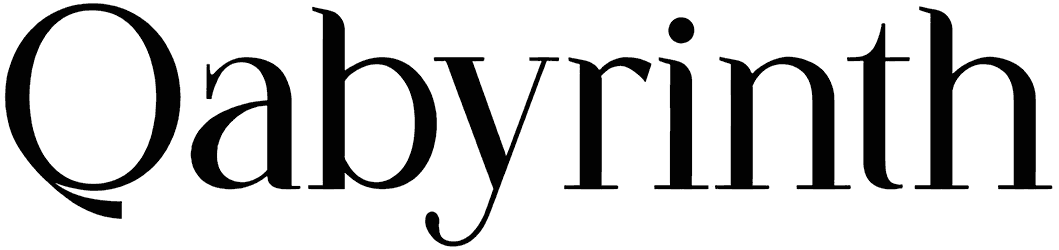
Qabyrinth Font
Prepare yourself to be amazed at the endless charm of Qabyrinth and how it changes the whole game in your favor. A stylish logo font like this can definitely give you a head start in the market by setting you apart from your competition.
By all means, choose this classy serif font for your next projects if you’re always in charge of designing business cards and logos for book publishers, professional translators, makeup artists, photographers, and so on.